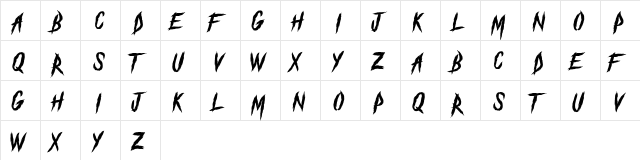
The Black Festival DEMO Regular
| Foundry | Knackpack Std |
| Designer | Knackpack Studio |
Design Context for The Black Festival DEMO Typeface
The Black Festival DEMO is a composed and adaptable typeface that performs quietly and consistently across a wide range of design contexts.